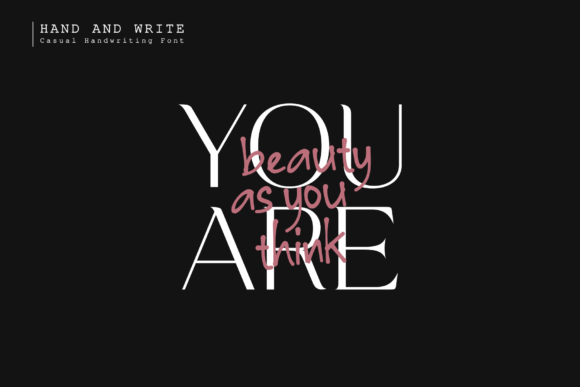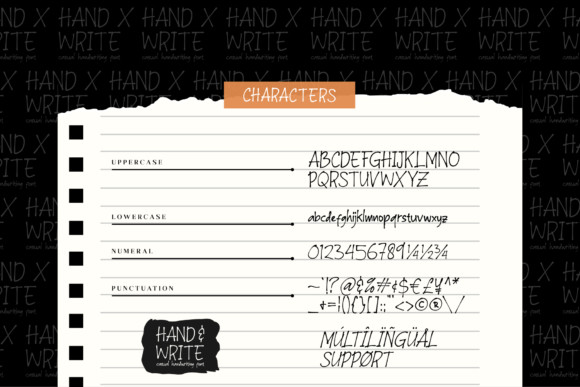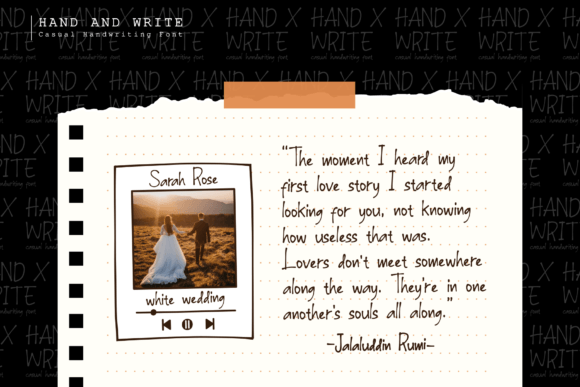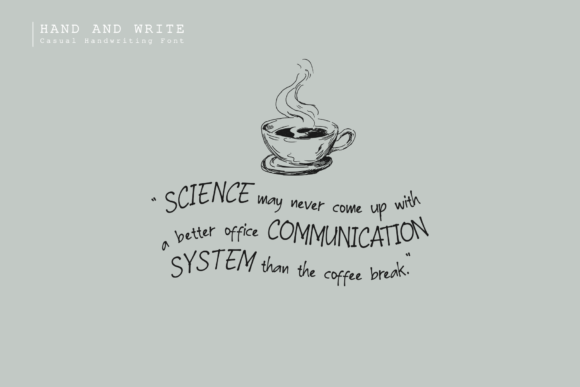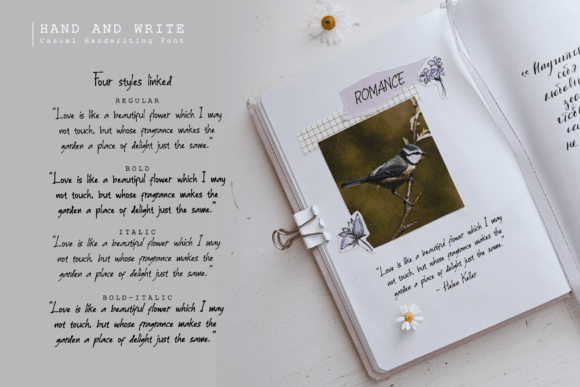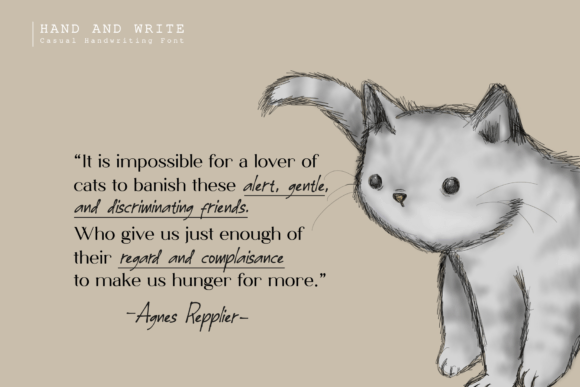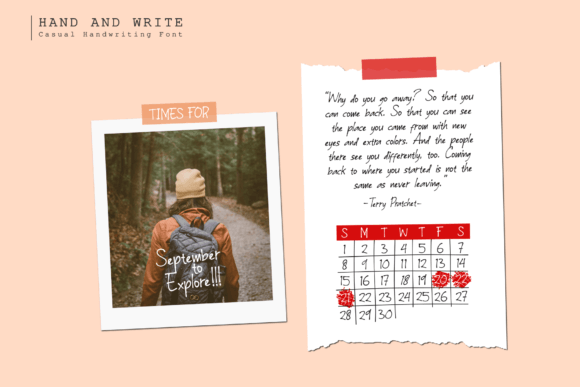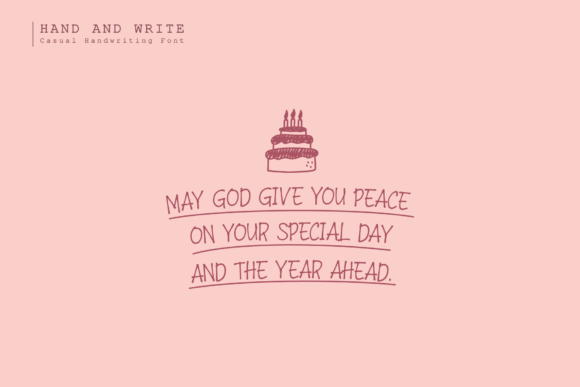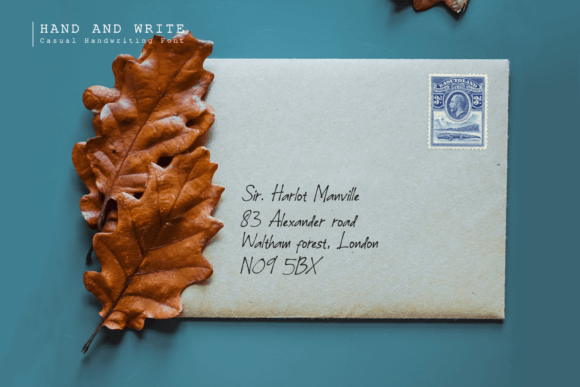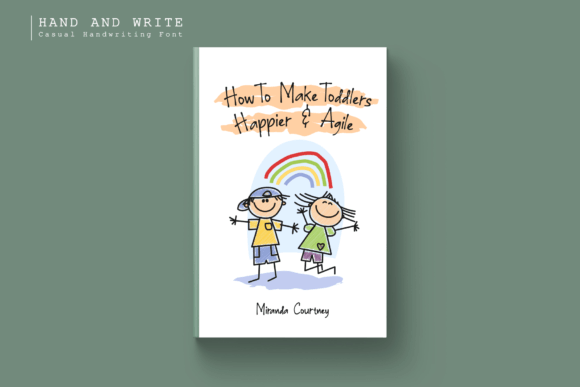
Hand and Write Font
About Hand and Write Font
Hand and Write is a playful and casual handwritten font that exudes a fun and whimsical vibe. With its lively and slightly quirky style, this font has the power to add a burst of charm to your designs, making them more engaging and visually appealing. Adding Hand and Write confidently to your projects promises results that are filled with personality and a touch of joy.
The whimsical nature of Hand and Write is evident in its playful letterforms, bringing a sense of informality and spontaneity to your designs. Whether you’re working on posters, social media graphics, invitations, or any other creative project, this font brightens up the visual experience and adds a delightful touch.
The casual handwritten aesthetic of Hand and Write makes it versatile and suitable for a variety of applications. Its adaptability ensures that it can be seamlessly integrated into diverse design contexts, from branding and logos to personal projects that require a bit of quirky flair.
In posters and social media graphics, Hand and Write injects energy and character, making your messages stand out with a lively and engaging presence. The font’s playful demeanor ensures that it resonates well with audiences seeking a touch of fun in design.
Confidently incorporating Hand and Write into your projects allows you to embrace the whimsy and spontaneity it brings. The results are designs that not only capture attention but also evoke a positive and cheerful response from viewers.
In summary, Hand and Write is more than just a font; it’s a design tool that adds a fun and casual touch to your creative endeavors. Whether you’re working on branding, social media, or personal projects, Hand and Write promises to infuse your designs with a delightful and quirky charm that you’ll love.